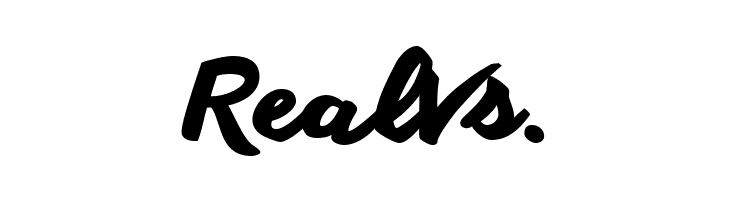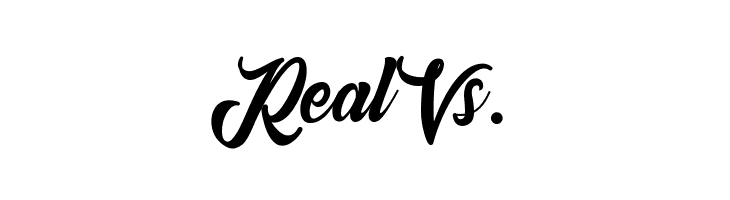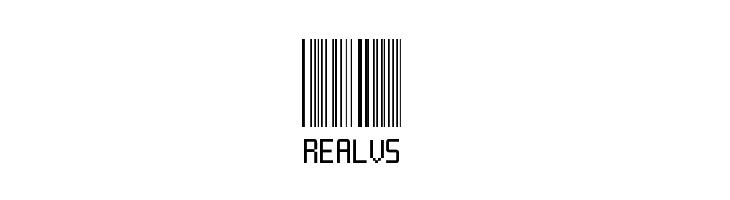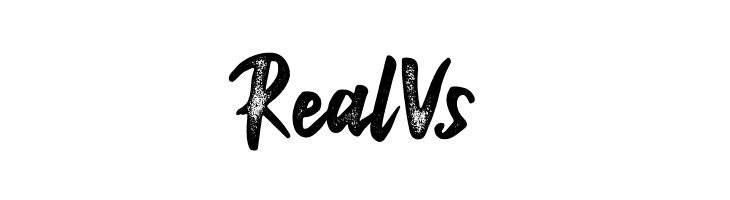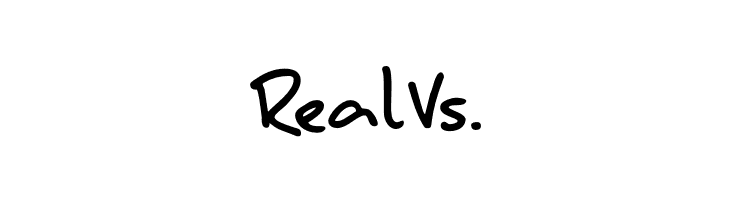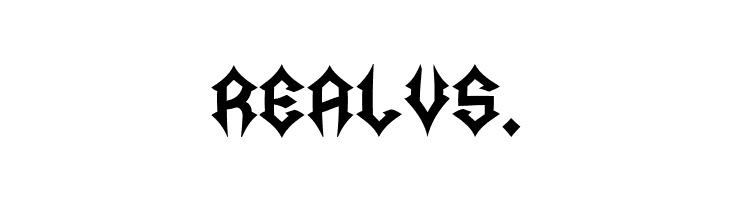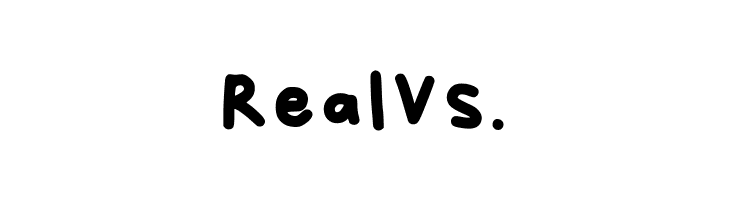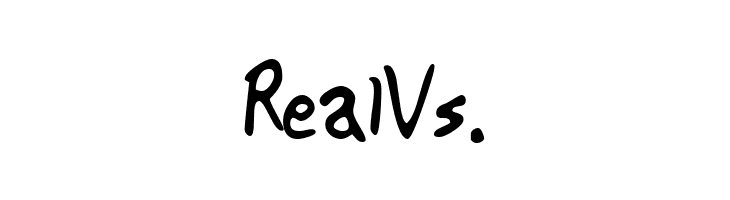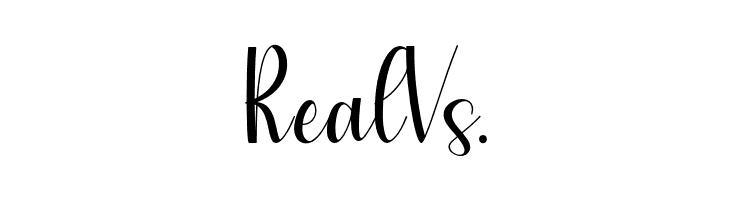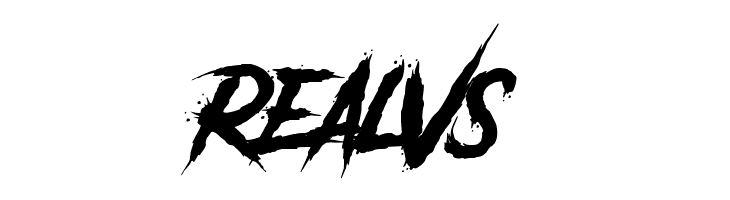
A bold, expressive handwritten font with dynamic strokes.
A thin, modern font with elongated, narrow letterforms and consistent stroke width.
A modern, geometric font with consistent stroke width and rounded edges.
A bold, cursive font with a dynamic and elegant style.
A bold, rounded, and modern font with a playful and approachable style.
A sleek, cursive font with elongated, flowing lines and a modern elegance.
A lively and elegant script font with a handwritten touch.
A bold, textured script font with a hand-painted, artistic style.
A playful, hand-drawn outlined font with a whimsical and informal style.
A bold, cursive script font with elegant curves and dynamic flourishes.
A chaotic, distressed font with jagged, irregular strokes and a rebellious style.
A playful, handwritten font with bold, rounded strokes and a casual, friendly style.
A bold, jagged font with a graffiti-like, energetic style.
A bold, grunge-style font with jagged, distressed letters.
A barcode-style font with vertical lines representing each character.
A bold, jagged, and slanted font with a distressed, grunge style.
A playful and elegant script font with interconnected, flowing letters.
An elegant, flowing script font with ornate uppercase and smooth lowercase letters.
A bold, gothic-inspired font with sharp, angular edges and intricate details.
A playful, handwritten-style font with a casual and dynamic appearance.
A playful, casual handwritten font with rounded, consistent strokes.
A graceful script font with fluid, interconnected strokes and a romantic flair.
A playful, casual handwritten font with smooth, flowing lines.
A bold, energetic script font with a dynamic, handwritten style.
A bold, brush-style font with dynamic strokes and a playful, informal vibe.
A bold, dynamic script font with a handwritten, fluid style.
A playful, handwritten font with bold strokes and a dynamic slant.
A bold, graffiti-style font with dynamic, energetic strokes.
A bold, graffiti-style font with angular strokes and dynamic flow.
A geometric and angular font with a futuristic and modern style.
An intricate and artistic font with swirling, elongated strokes and decorative flourishes.
A playful, rounded font with consistent stroke width and a modern, approachable style.
A jagged, edgy font with irregular strokes and a hand-drawn appearance.
A bold, playful, and hand-drawn font with a friendly and decorative style.
A modern, geometric font with a clean and minimalistic design.